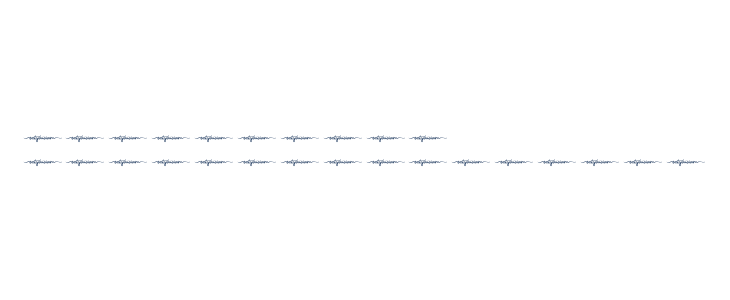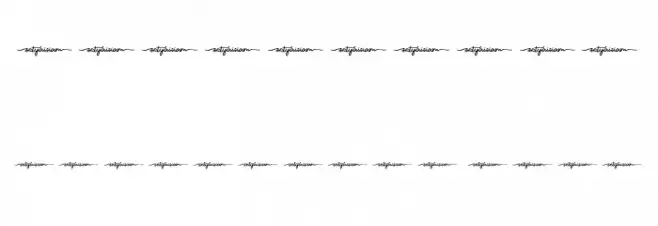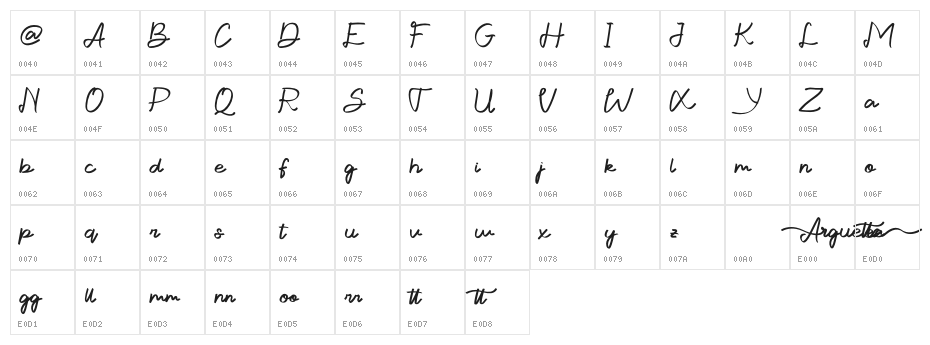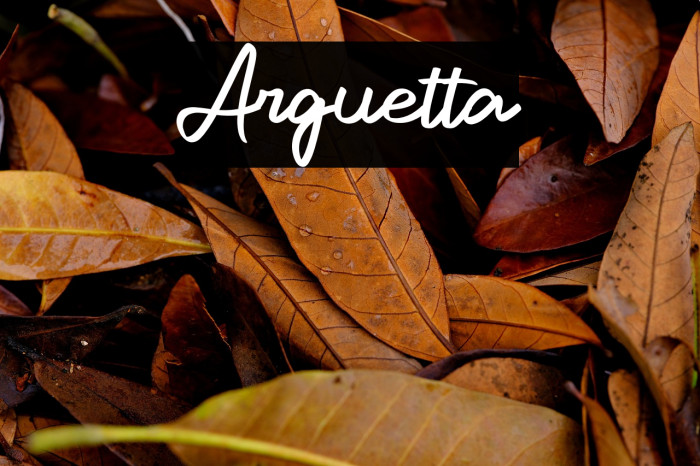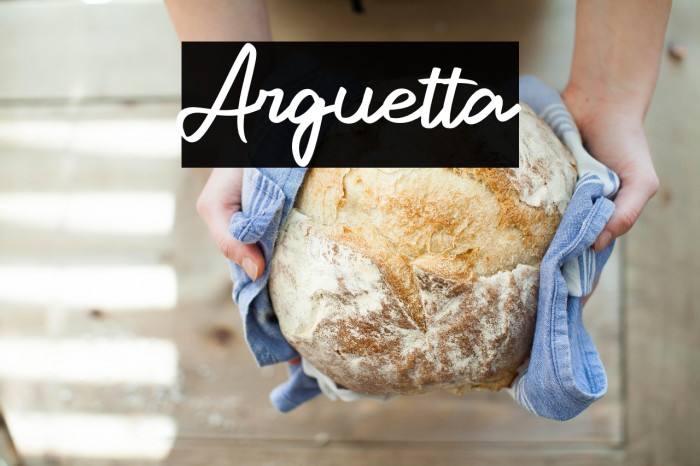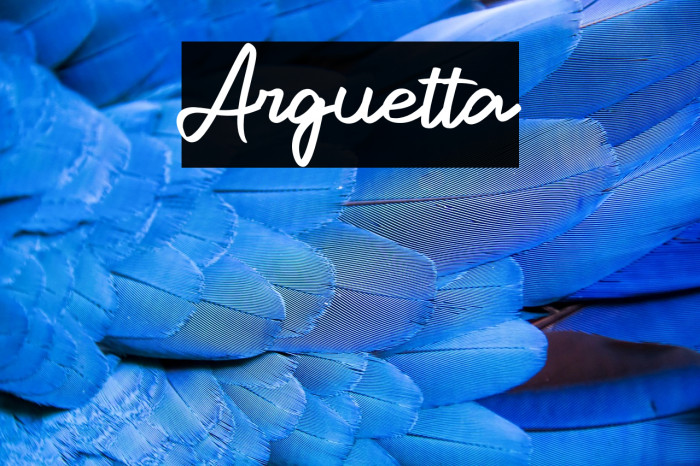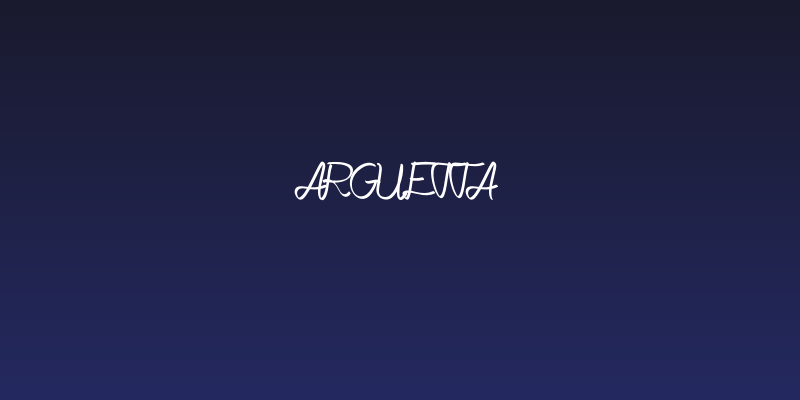
Arguetta Font
Arguetta Description
This font is a stylish and elegant script typeface that exudes a sense of fluidity and grace. The characters are interconnected with smooth, flowing strokes, giving it a handwritten appearance. The uppercase letters are slightly more elaborate, with some featuring unique loops and curves, while the lowercase letters maintain a consistent and harmonious flow. The numbers and special characters are designed to match the overall aesthetic, ensuring a cohesive look across all text. This font is perfect for adding a personal touch to any project, making it ideal for invitations, greeting cards, and branding materials.
| Proposed Projects | Ideal for wedding invitations, greeting cards, personal branding, and elegant logos. |